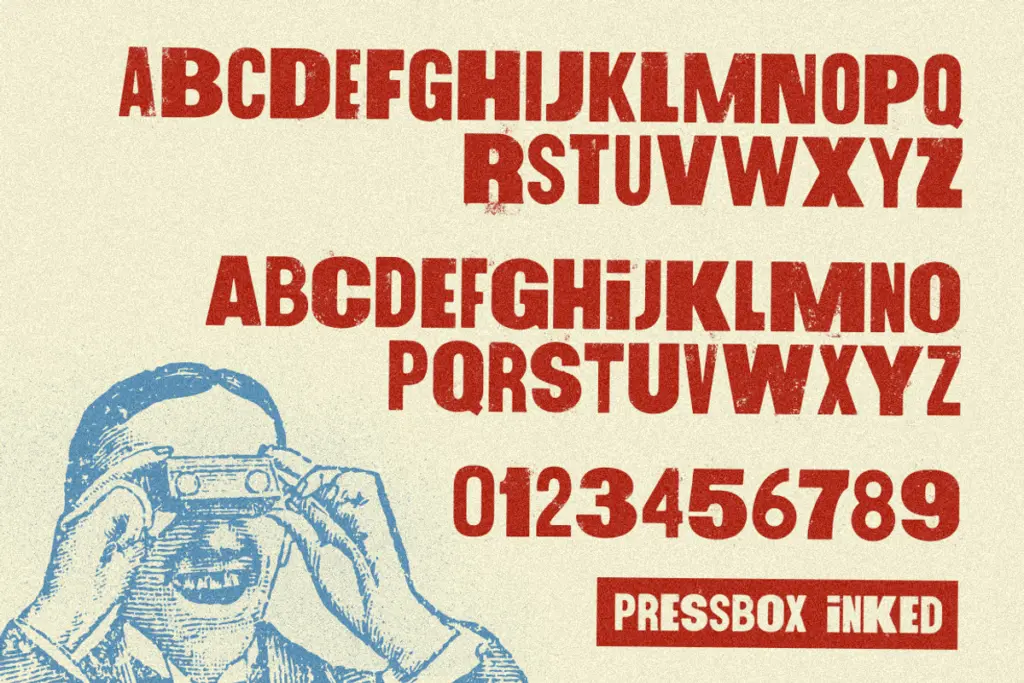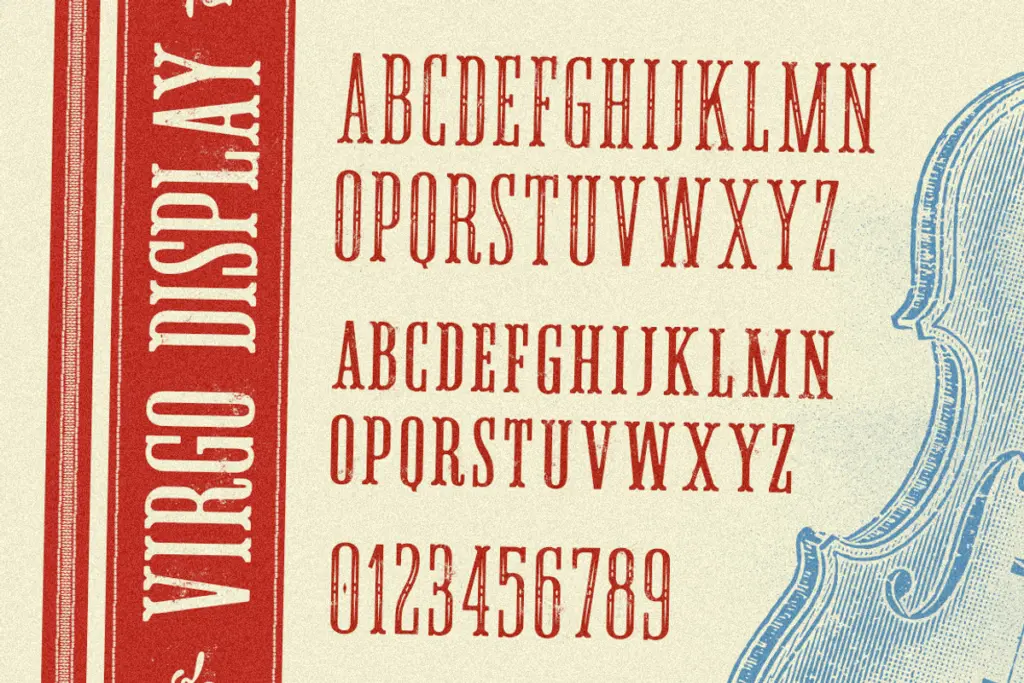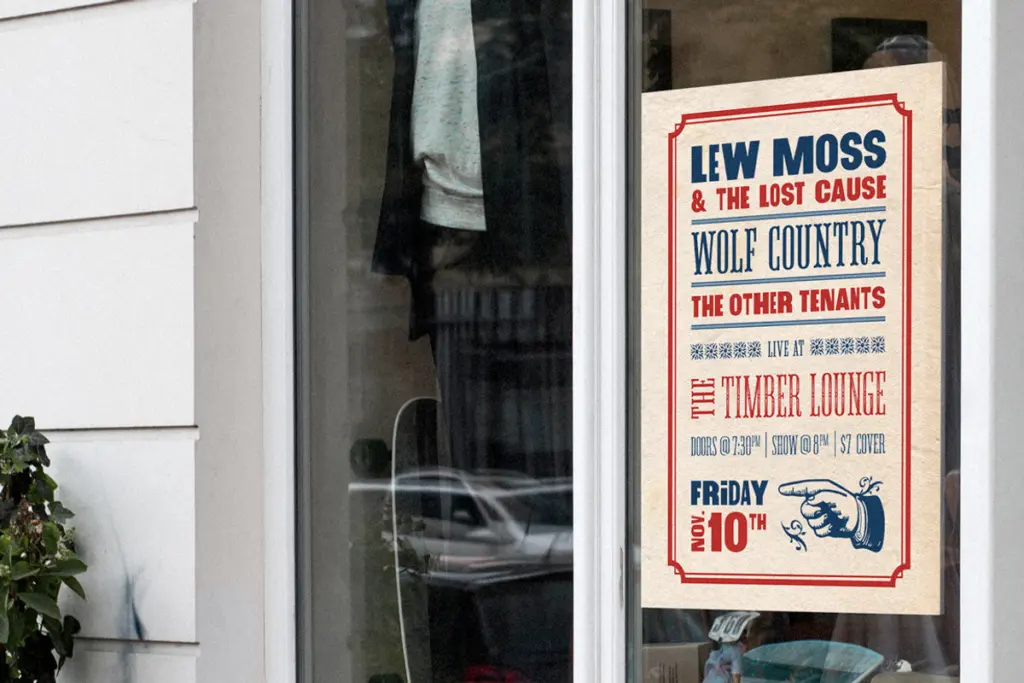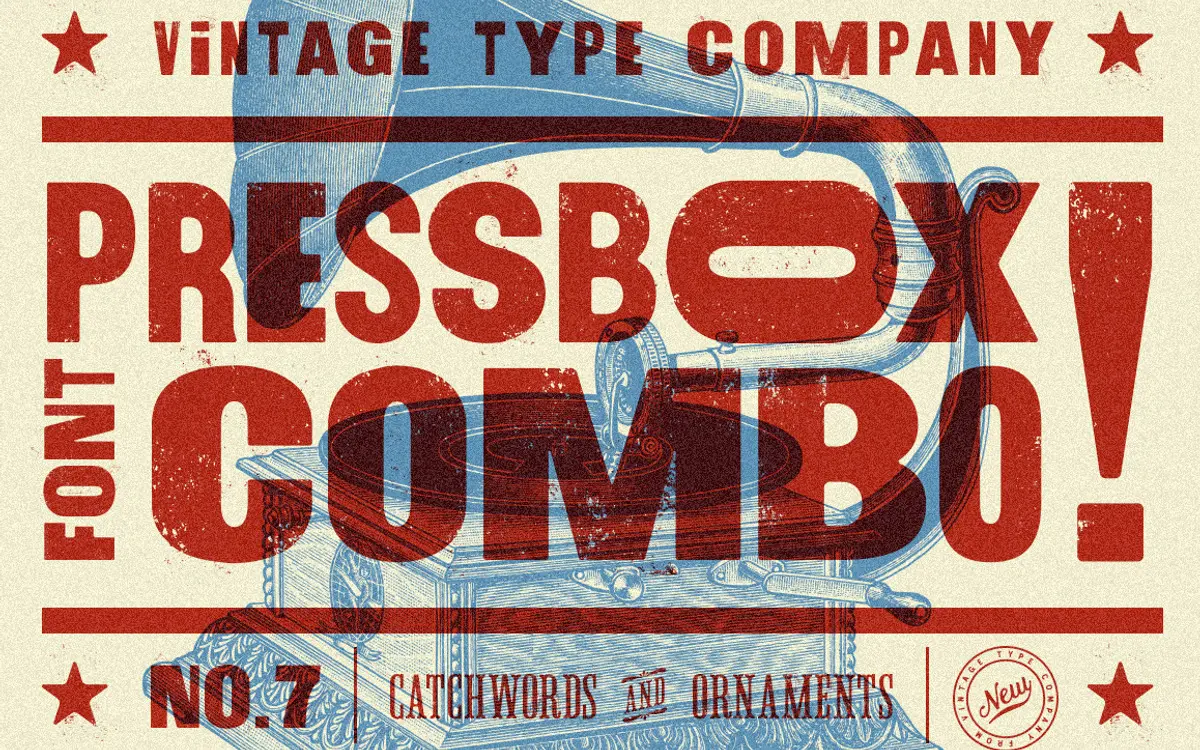
PressBox is built around the look of old metal type shops: wood-block posters, hand-set job printing, the kind of lettering that turns up on whiskey labels and circus bills. The combo bundles two main faces plus a bonus ornament set. PressBox Display is the workhorse sans, drawn with the slightly uneven stroke weight and blunt terminals you’d expect from worn press type. Virgo Display, the companion, is a condensed serif with spurred details and a small-cap lowercase sitting under full caps, which gives it a stiffer, more formal register than the sans. Both come with an inked alternate style layered on top of the clean version, so you get a rough, ink-bled texture without needing to fake it in software.
The design point of view is consistent and well executed within its lane: this is not a neutral working sans, it’s a costume. That’s fine as long as the job calls for that costume.
The standout mechanic is that PressBox Display changes glyph width depending on case — switch between upper and lowercase to get a narrower or wider setting without touching a tracking value. It’s a clever bit of engineering for a display font and gives you two proportions from one file, useful when you’re fitting headline text into an awkward banner shape.
Virgo Display’s spurred condensed caps and small-cap lowercase make it better suited to short labels and subheads than to running text; it reads as ornamental rather than functional at length. Virgo Ornaments rounds out the set with catchwords and decorative flourishes meant for borders and dividers rather than as a typeface in the usual sense.
Both display fonts carry multilingual character support across a decent range of European languages, so accented Western and Central European text is covered without hunting down substitute glyphs. The inked alternates double the practical range of the two main fonts — clean for controlled reproduction, inked for anything meant to look printed rather than typed.
This combo is aimed squarely at packaging, poster, and badge-style work with an Americana or old-press feel: craft beer labels, barbershop signage, market stall branding, anything trading on a hand-printed, slightly worn aesthetic. The case-switching width trick is genuinely handy for logotype and lockup work where you need a wordmark to fill a specific space.
It is not a text-setting family — don’t expect to run paragraphs in Virgo Display, and PressBox Display is a headline face, not a body one. Pair it with a plain, quiet body face for any longer copy the layout needs. Used within its intended range — labels, headers, badges, short display lines — it does the job convincingly and with more built-in texture than most vintage-style bundles offer out of the box.
- Case-based width switching in PressBox Display solves real lockup-fitting problems
- Inked alternates give an authentic worn-print texture without extra software work
- Broad multilingual glyph coverage across the two main display fonts
- Neither main font is suited to running text, so a separate body face is always needed
- Virgo Ornaments is decorative only and adds little outside border and divider use
PressBox Font Combo delivers a convincing letterpress texture and a genuinely useful width-switching trick, but it's a display-only package with a narrow job description. Good for labels, posters, and badge lockups; not built for body text of any length.